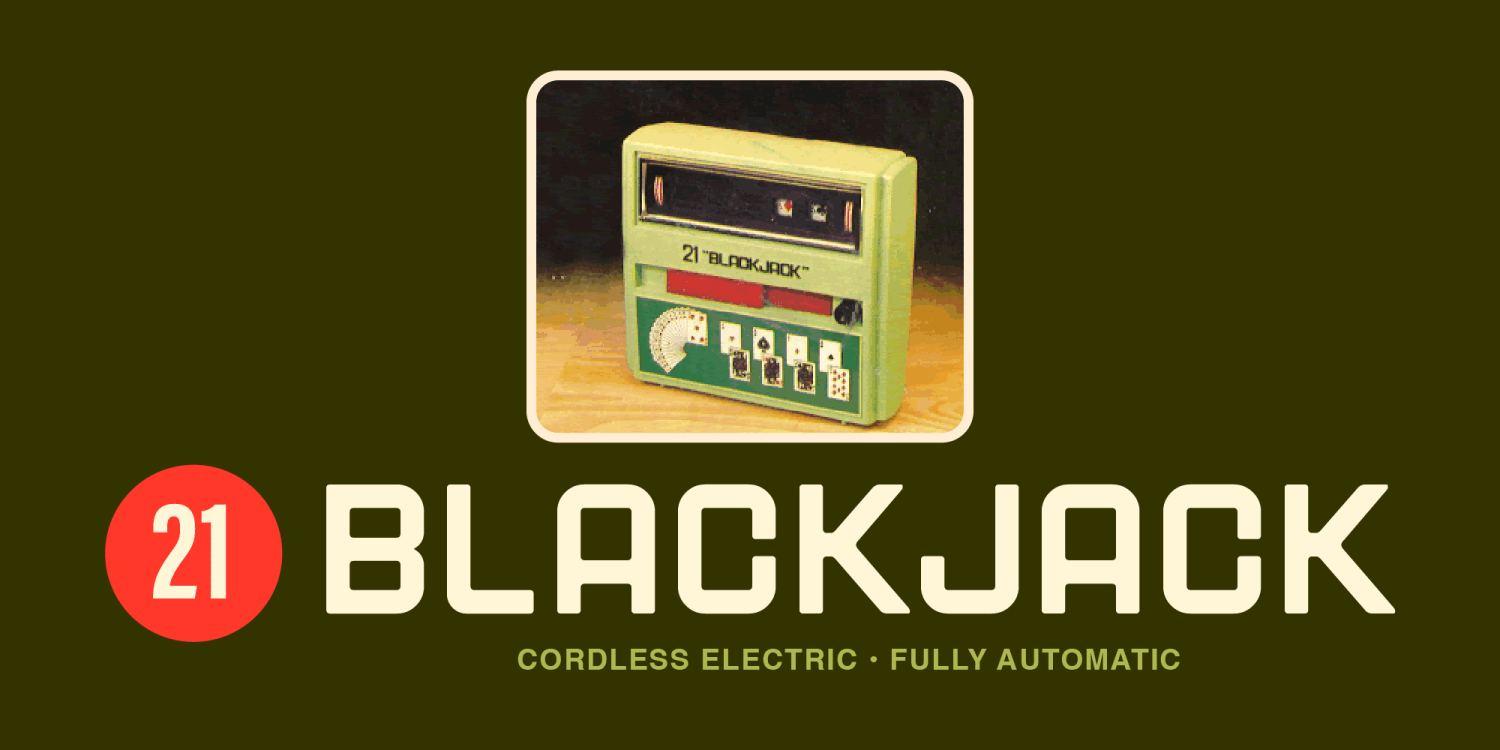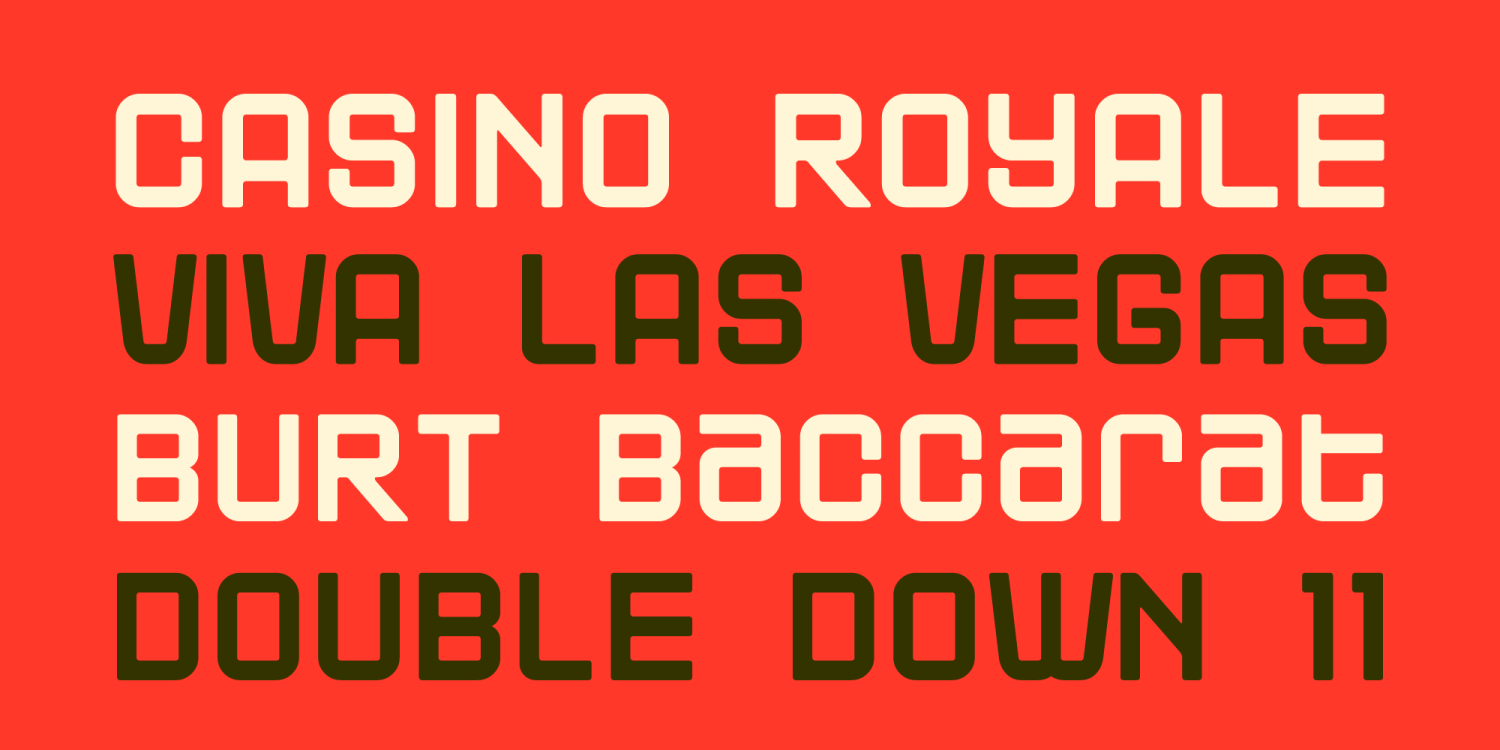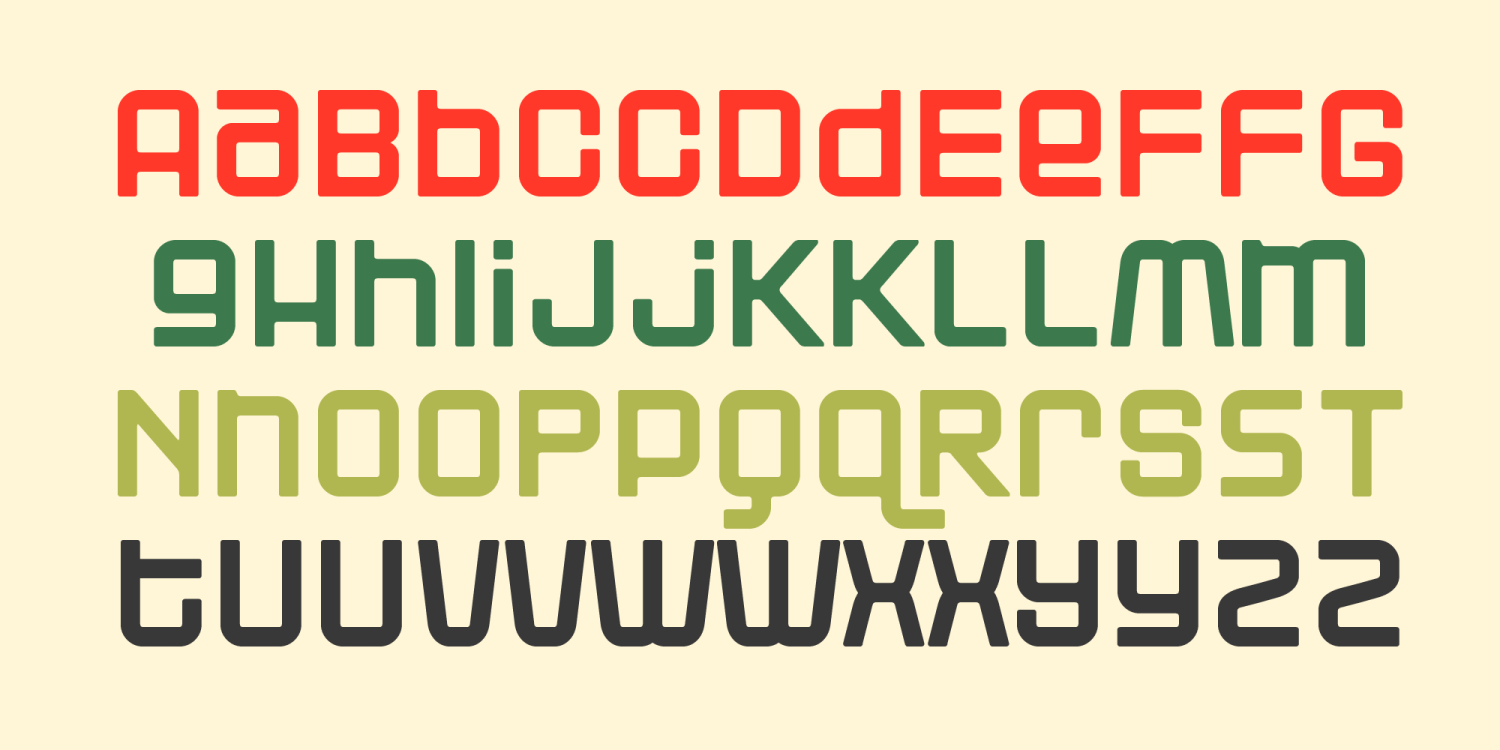
I just moved to California, and everyone keeps telling me to check out Vegas. Since I'm not a big gambler, and most of you aren't a mere 5 hours away from the city of sin as I am, I thought I'd bring Las Vegas to you this week in the form of a font. Its my little treat for you. My little way of saying, "Sorry I have been not making fonts for the last 2 months." Are we cool now?